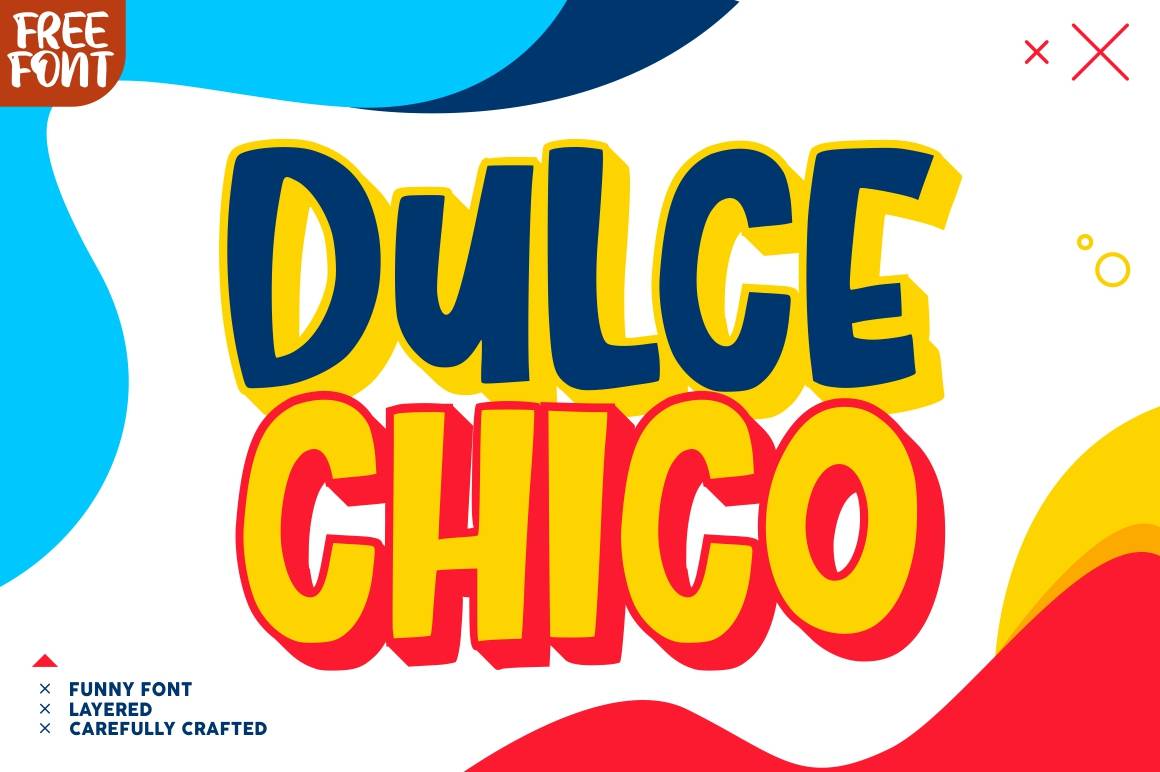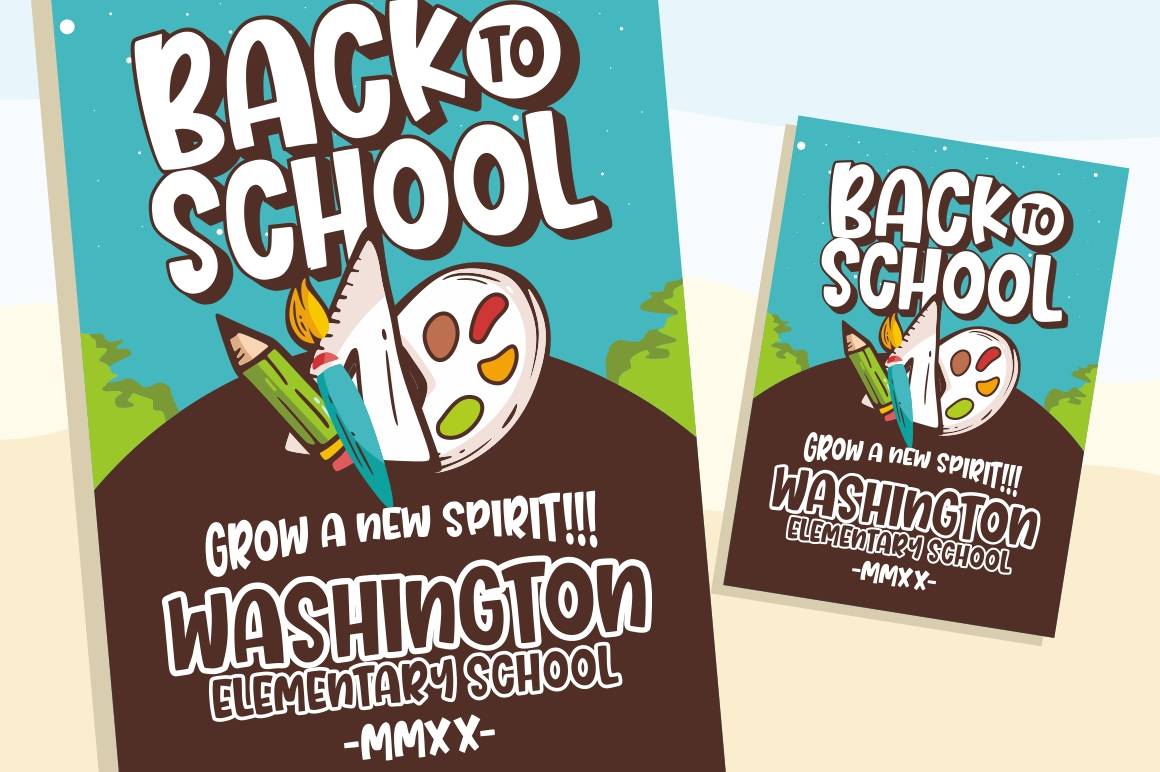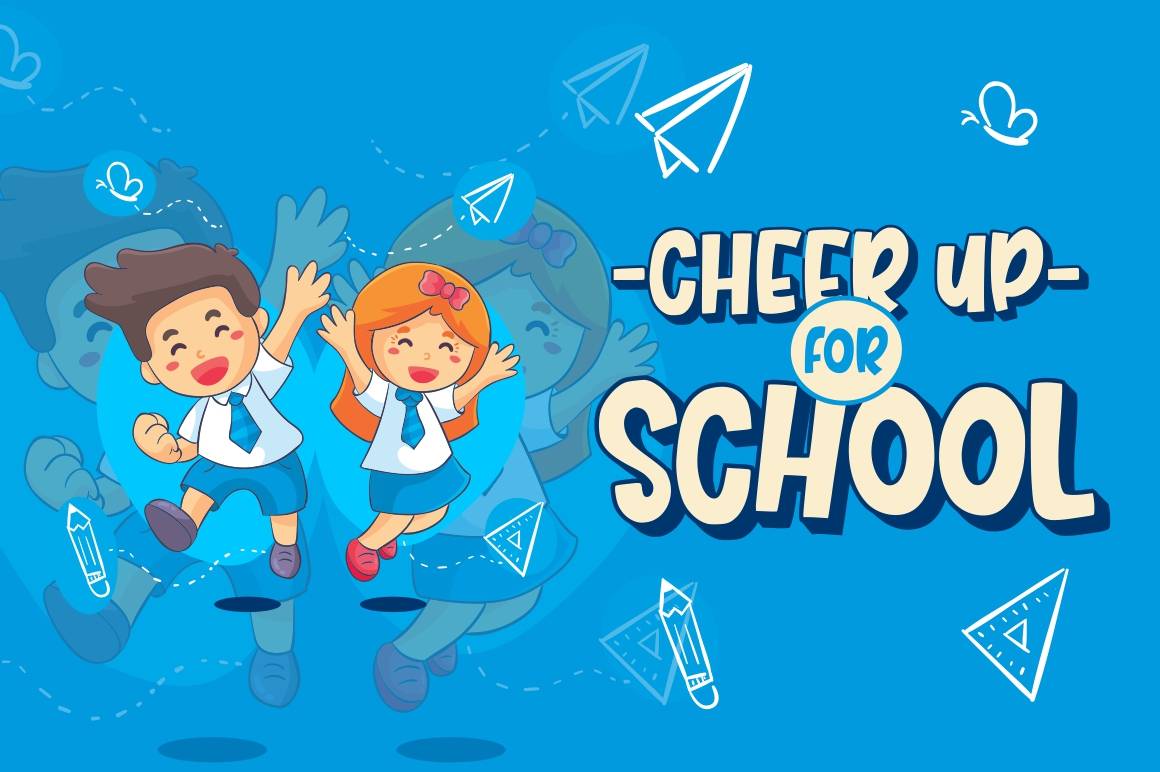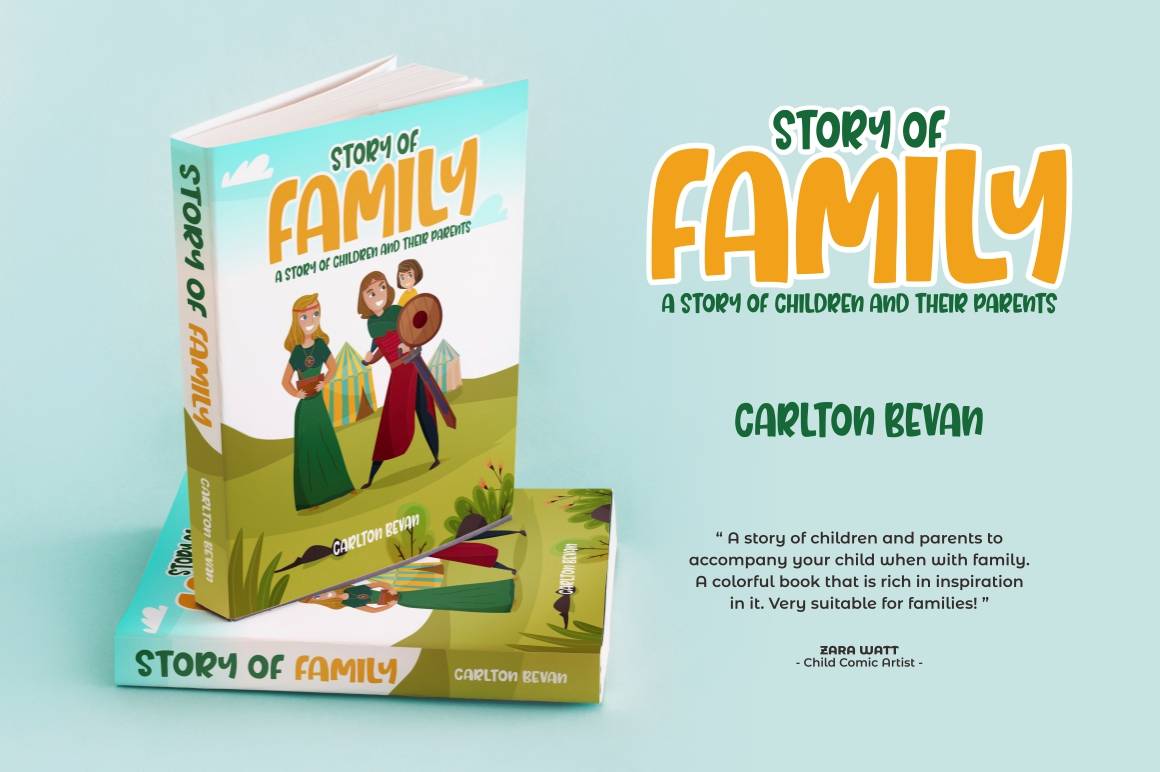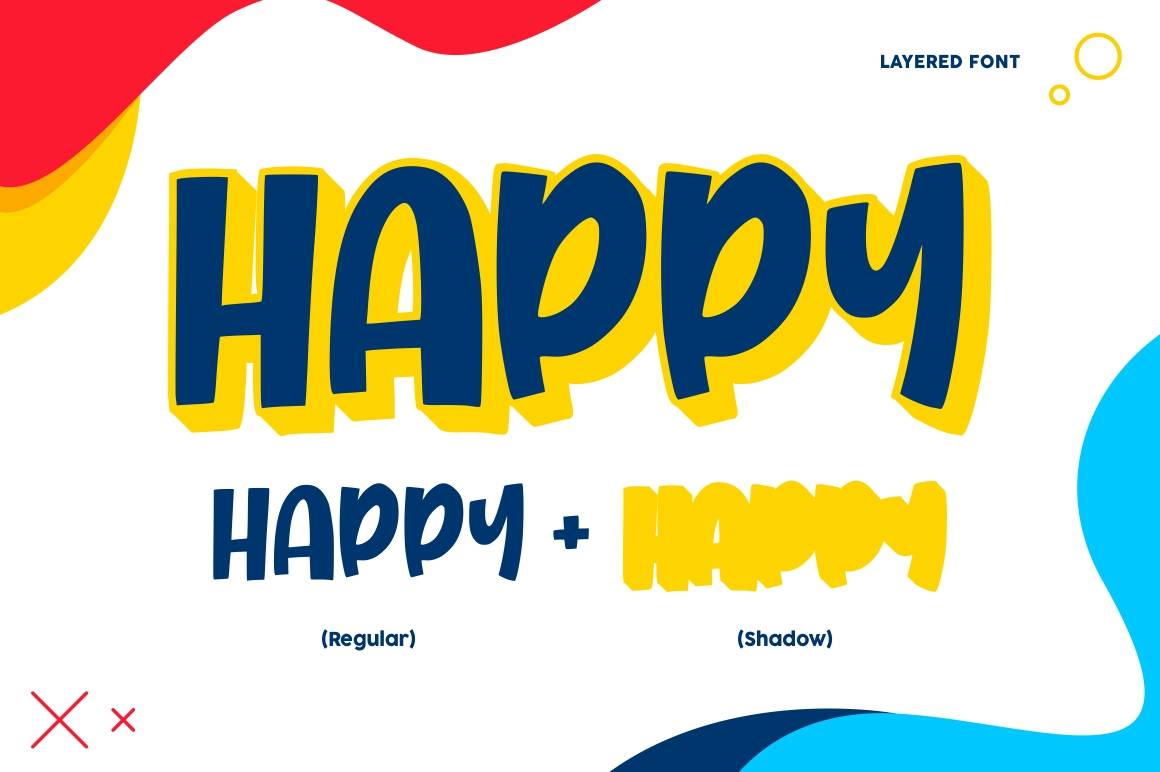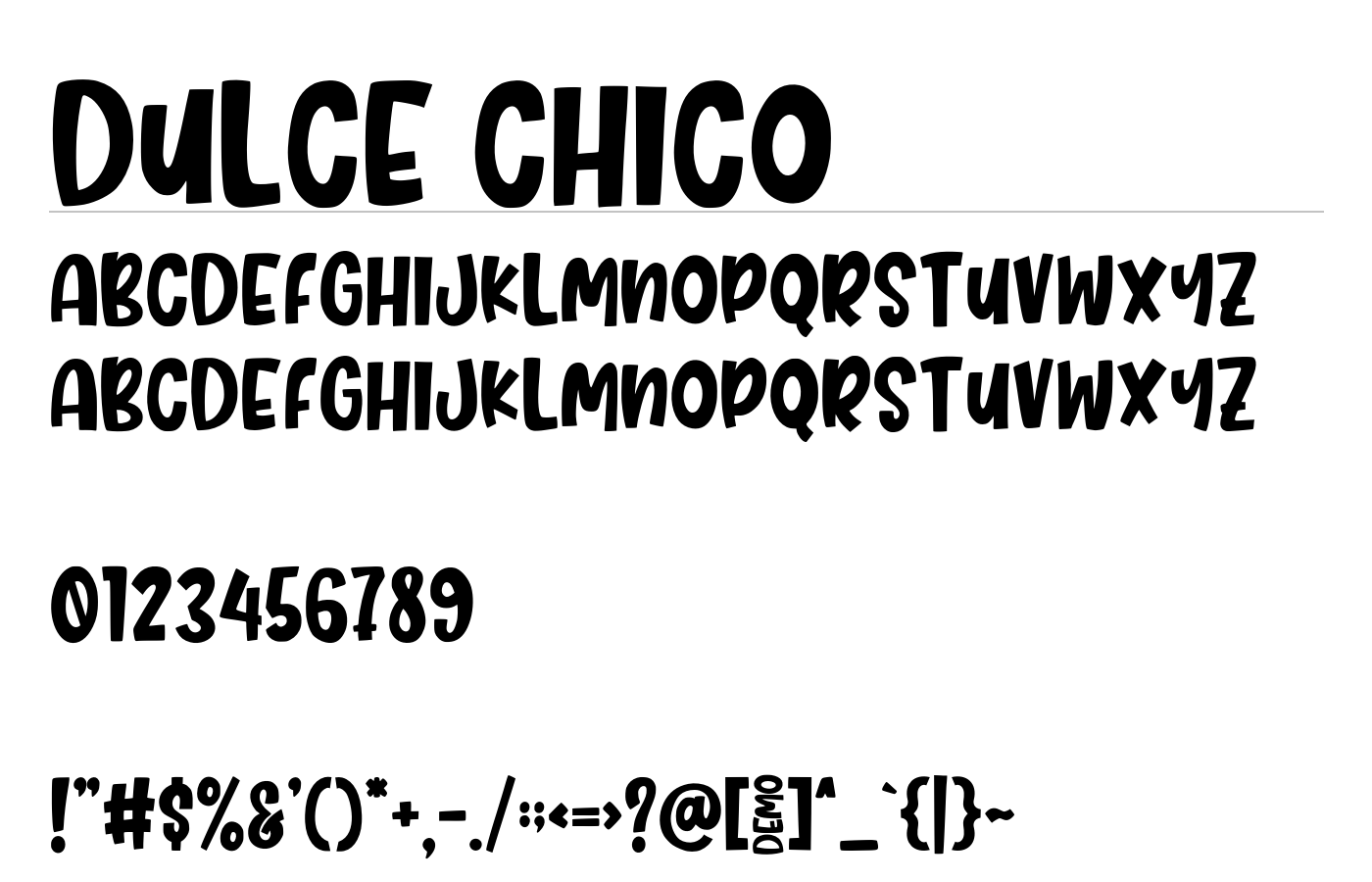
Dulce Chico is a bold, playful sans serif font with a casual, hand-drawn feel. Its tall, slightly condensed letterforms and uneven strokes give it a friendly and approachable personality, making it ideal for fun, informal designs like children’s books, posters, and branding that needs a lively touch. This font works well for headlines and logos where a quirky, energetic style is desired.
| Font family | Dulce Chico Font |
| Release date | 2020-01-15 |
| Designer | Good Java Studio |